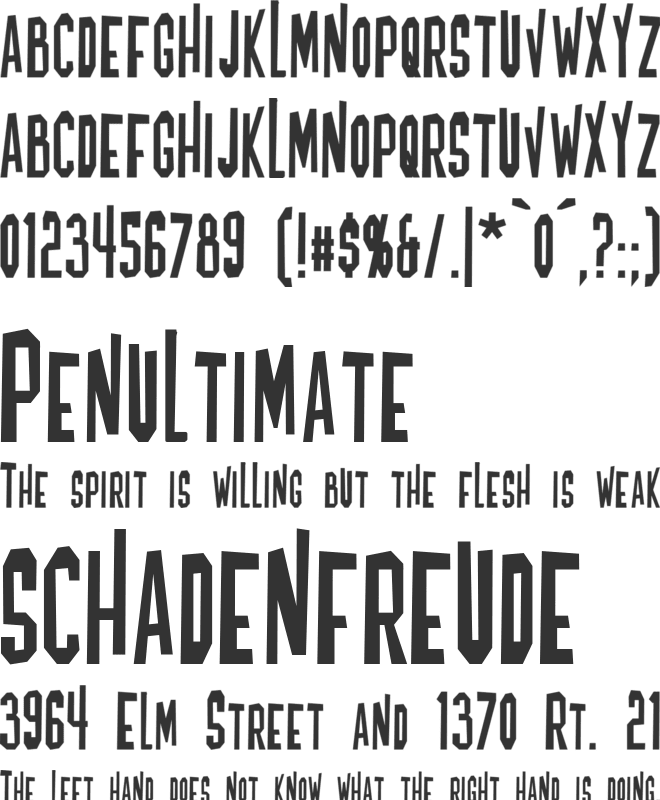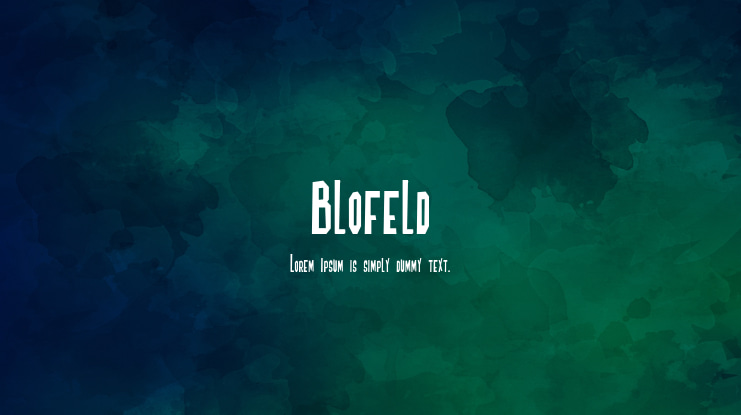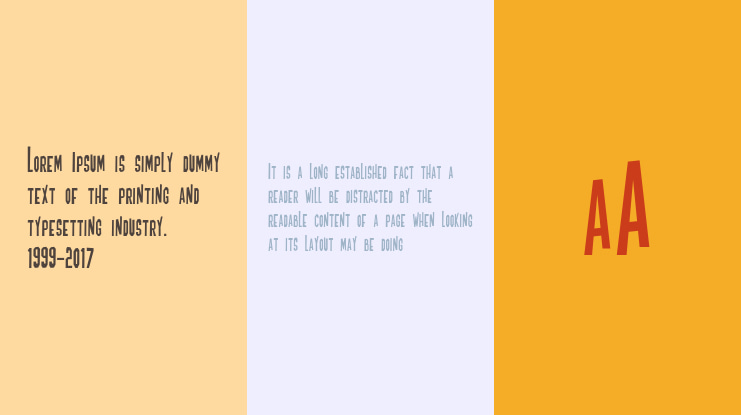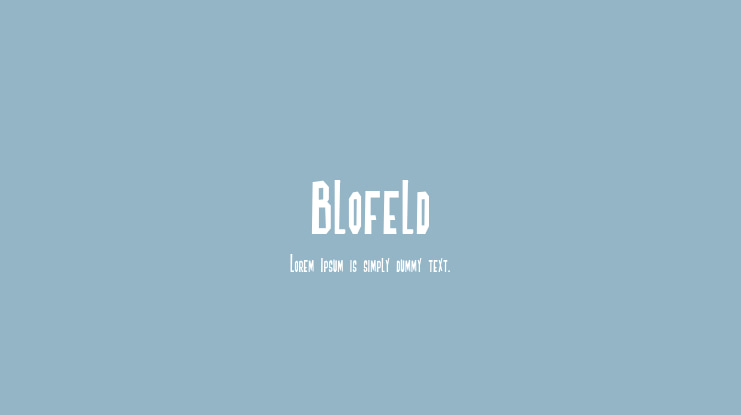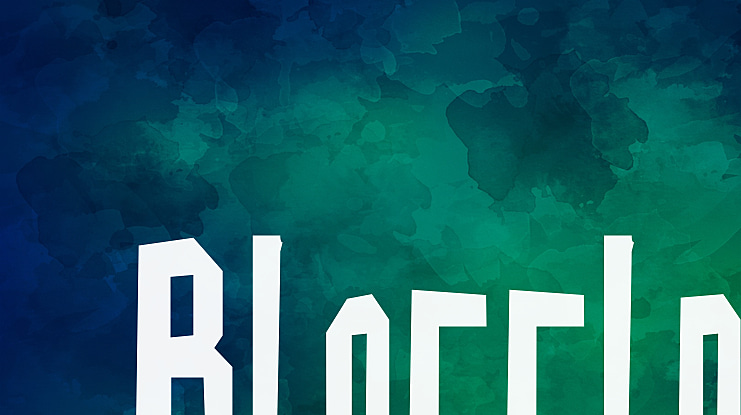
Blofeld Font Family
Neale Davidson
This distressed, angular font is based on the title logo of Exile's cult-classic "Evil Genius" computer game. Includes full alphabet, extended punctuation and Euro. Includes italic version.
- Added OE and Per-Thousand glyphs